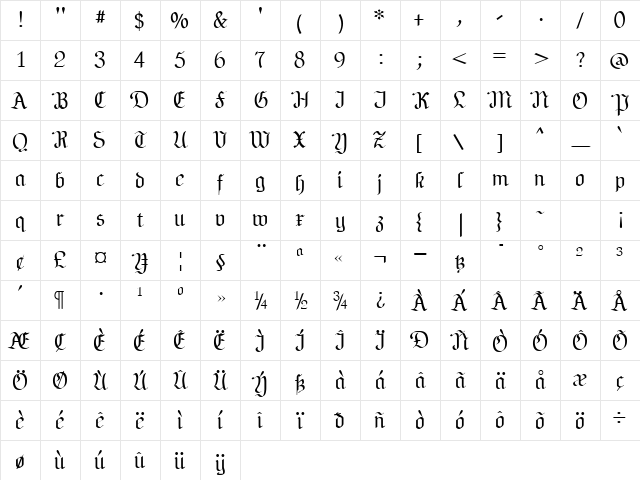
NeuAltisch Regular
Design Context for NeuAltisch
NeuAltisch is a composed and adaptable typeface that performs quietly and consistently across a wide range of design contexts.